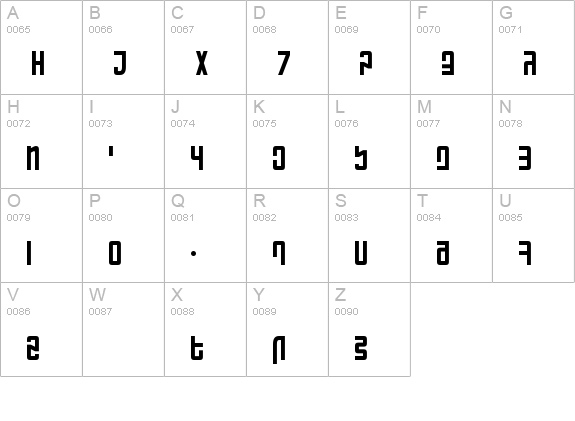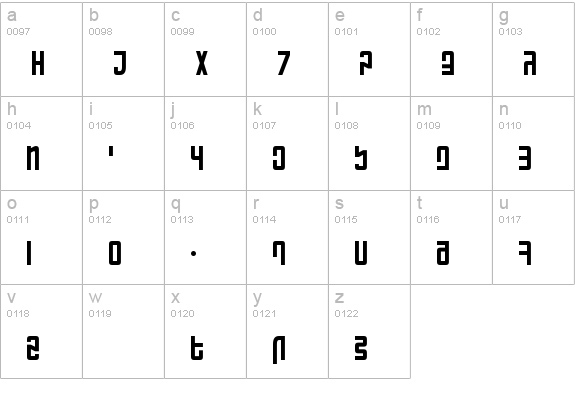
Ranmorian Standard beta Font Details
Introducing the Ranmorian Standard beta font - a striking and versatile typeface designed to elevate your creative projects to new heights. With its modern yet classic aesthetic, Ranmorian Standard beta is perfect for a wide range of design purposes, from branding to editorial to digital media. This font features a harmonious balance of clean lines and elegant curves, giving your text a polished and professional look. Whether you're designing a sleek logo, crafting a stylish website, or creating eye-catching social media graphics, Ranmorian Standard beta is sure to make a lasting impression. What's more, Ranmorian Standard beta is completely free to download at FontsMarket.com. That's right - you can access this exceptional font at no cost, making it an invaluable addition to your font library. Don't miss out on the opportunity to enhance your designs with the beauty and versatility of Ranmorian Standard beta - download it today and unleash your creativity!